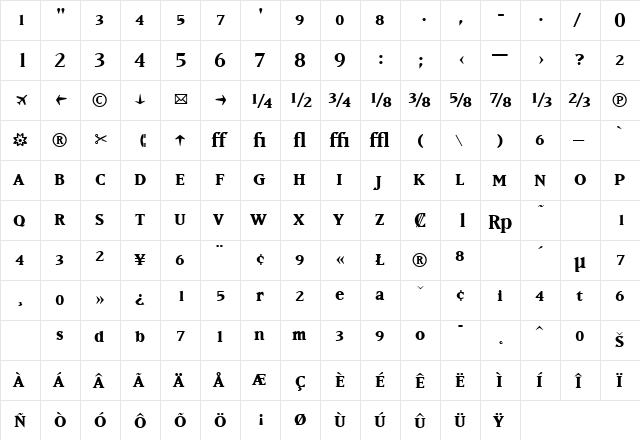
MatrixBoldFractions Regular Font Preview
MatrixBoldFractions Regular
Design Context for MatrixBoldFractions Typeface
MatrixBoldFractions offers clean, dependable letterforms without strong stylistic allegiance, making it a practical choice for designers who need flexibility. The heavy weight commands attention and anchors typographic hierarchies.